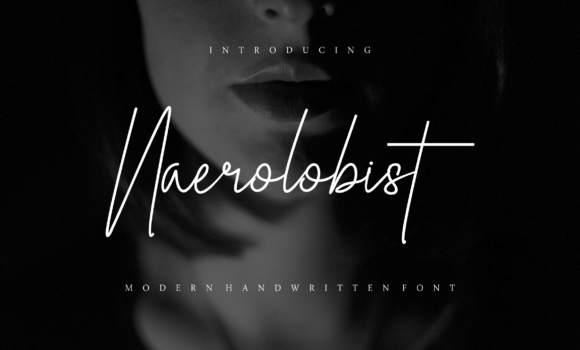
Naerolobist Font – Free Download Introduction to Naerolobist Font Naerolobist is a cool and modern handwritten signature font. 📸 Preview Gallery 5 images 📌 Product Name Naerolobist Font 👤 Author kalingga.albert 📂 Category Explore ⬇️ Download Naerolobist Font FREE Free